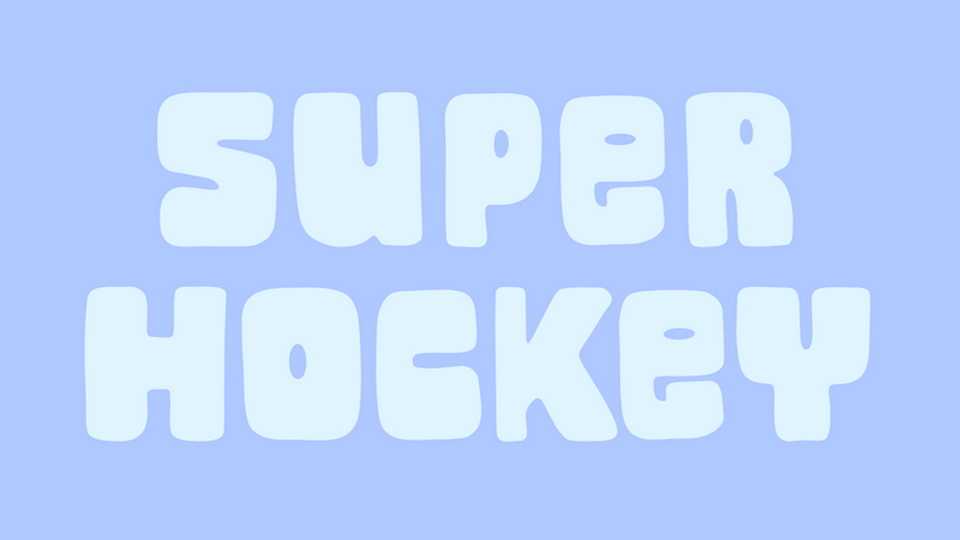
Download Super Hockey font, a soft, rounded display typeface with a bold and playful appearance. Its smooth, inflated letterforms create a friendly and approachable feel.